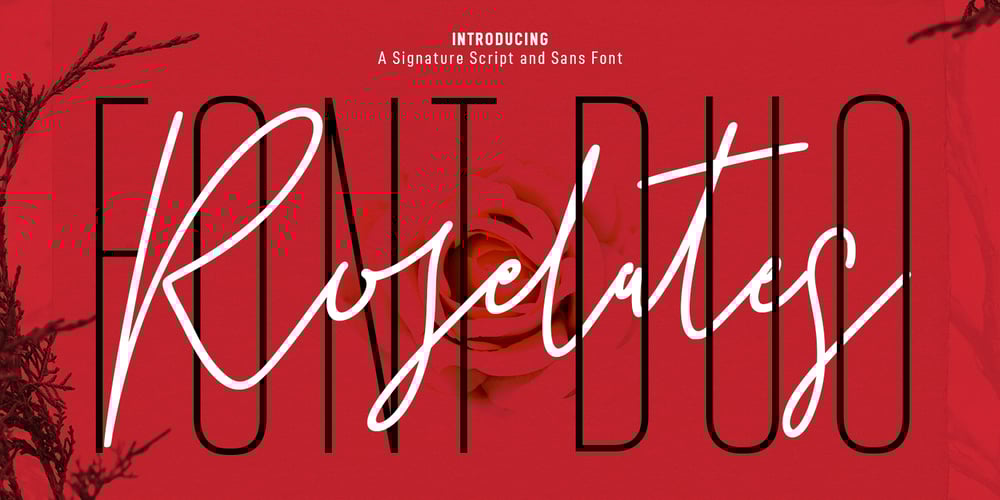
Roselates Font Family was designed by Gilang Maulana and published by Maulana Creative. Roselates contains 2 styles and family package options. Roselates is a modern script and sans font duo. With light script and thin condensed sans stroke, fun character with some of ligatures. To give you an extra creative work. Roselates font support multilingual more than 100+ language. This font is good for logo design, Social media, Movie Titles, Books Titles, a short text even a long text. Make a stunning work with Roselates font. Cheers, MaulanaCreative